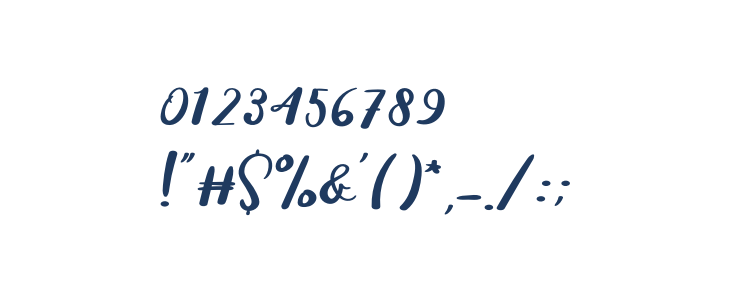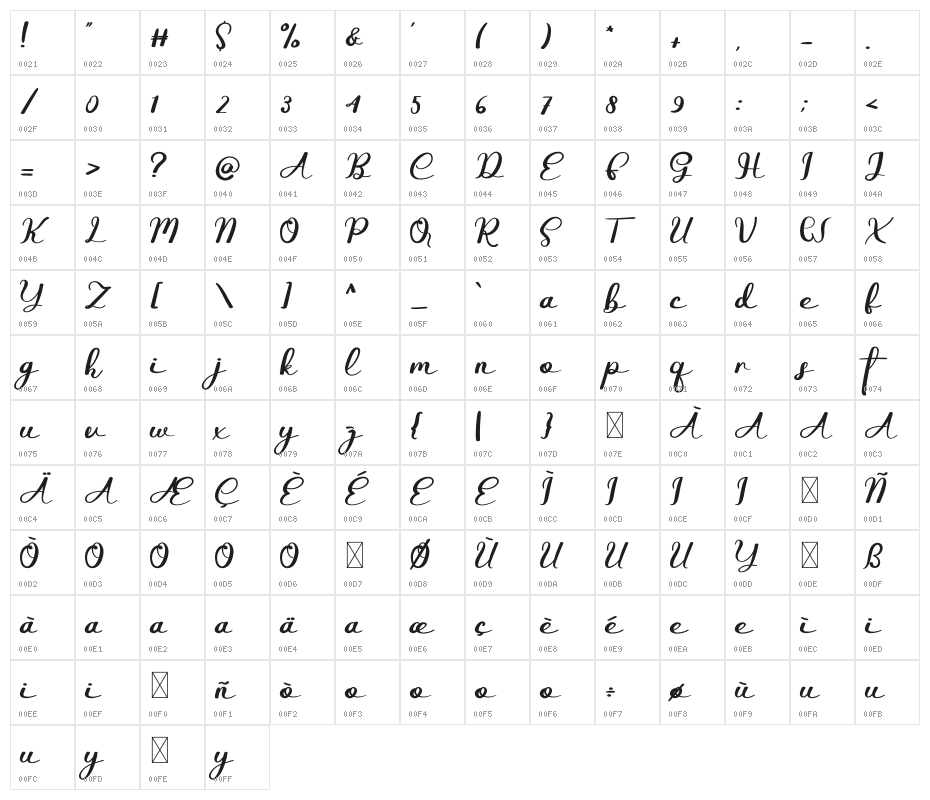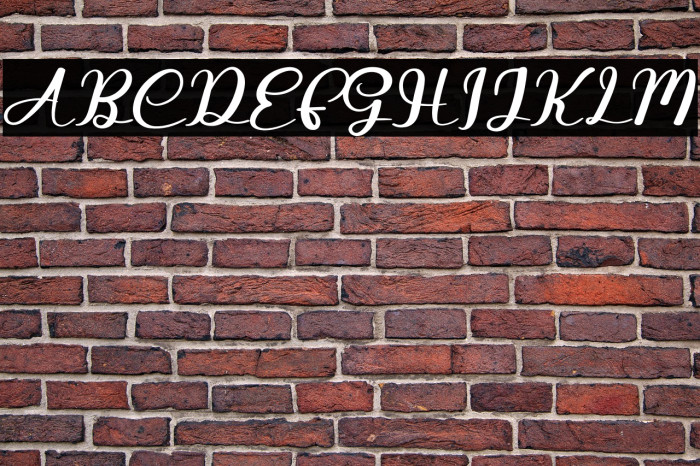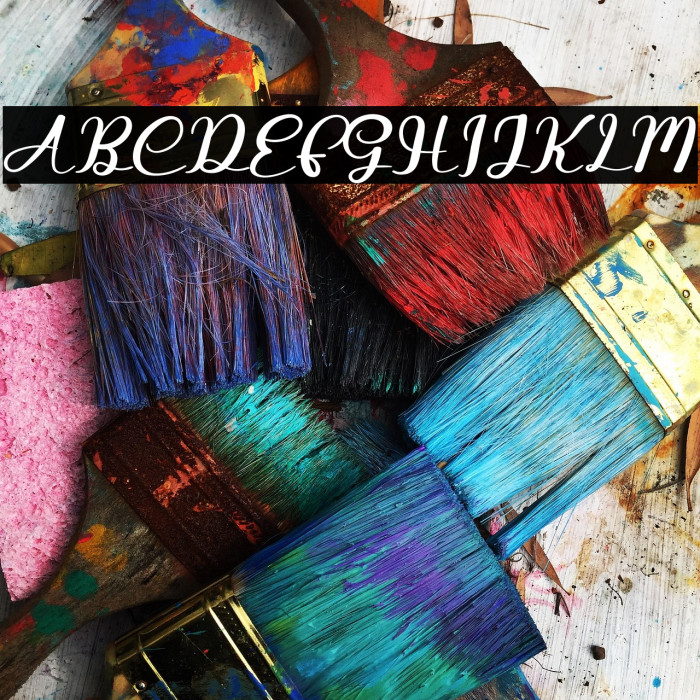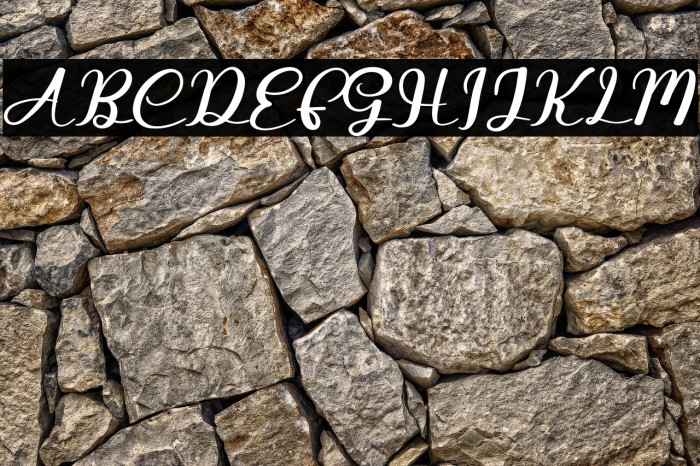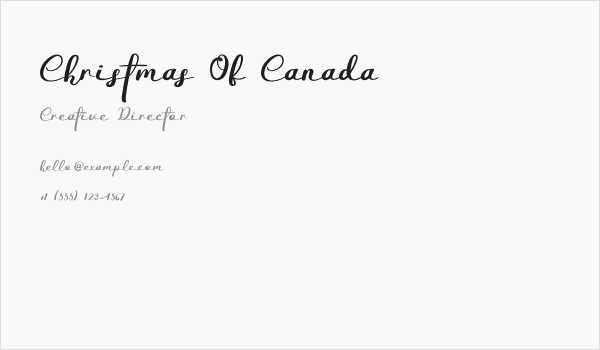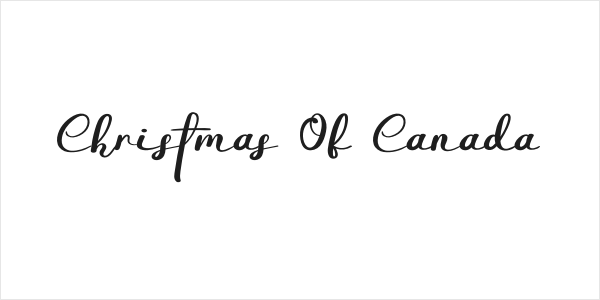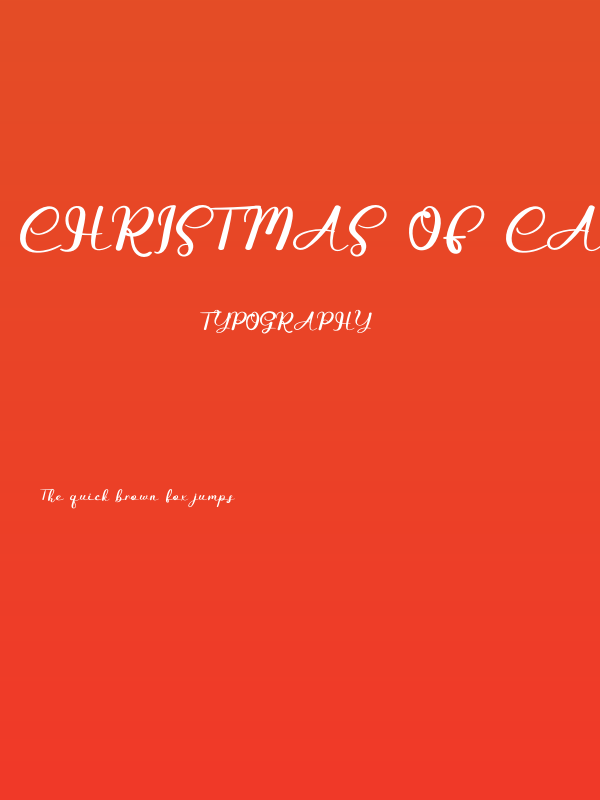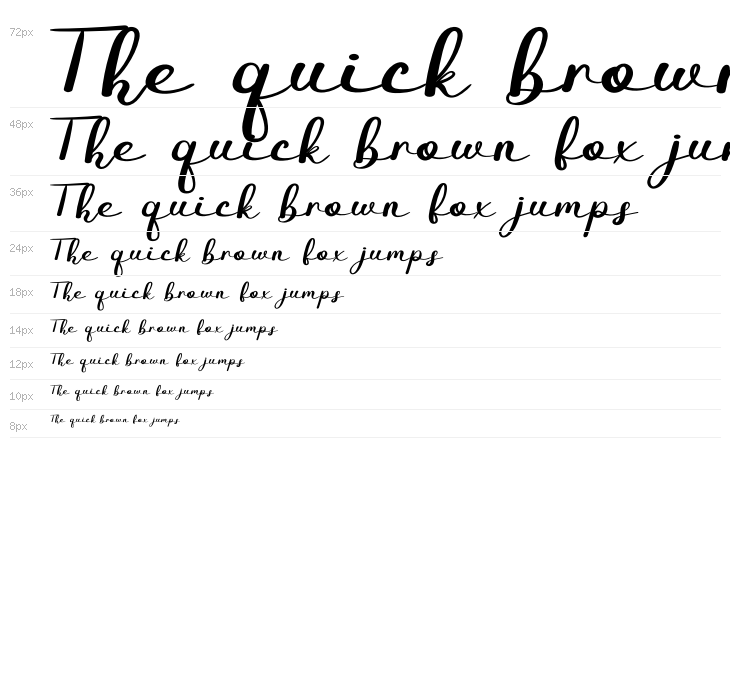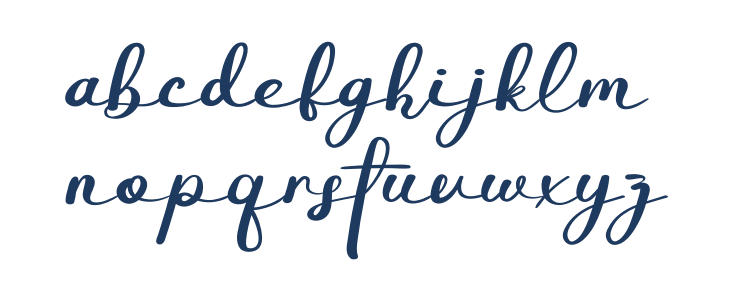
Christmas Of Canada Font
Christmas Of Canada Description
This elegant script font features fluid, cursive strokes that convey a sense of sophistication and grace. The uppercase letters are characterized by sweeping curves and loops, while the lowercase letters maintain a consistent flow with a slightly more restrained design. The numerals and special characters are crafted to complement the overall style, ensuring a cohesive appearance. The font's design is both decorative and legible, making it suitable for a variety of applications where a touch of elegance is desired.